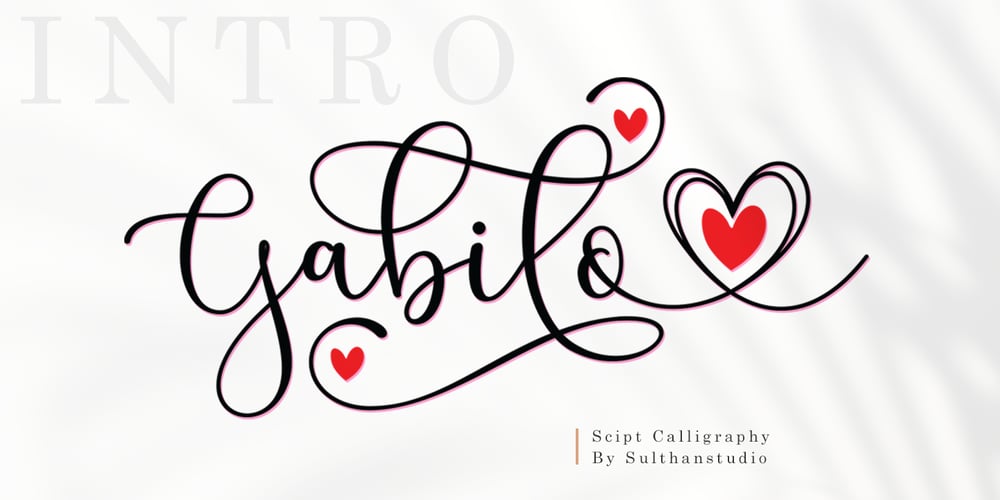
Gabilo Script Font Family was designed by Nasrullah and published by Sulthan Studio. Gabilo Script contains 1 styles and family package options. Gabilo Script font with a smooth, handwritten style. Gabilo script is perfect for branding projects, homeware design, product packaging, use in business cards, invitation cards, etc. Simply as a stylish text overlay onto a background image or anything that requires a touch of elegance.also comes with heart swashes that can be spliced.